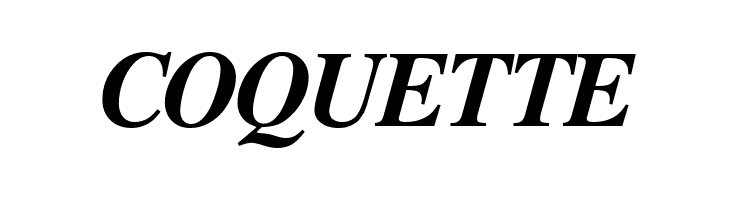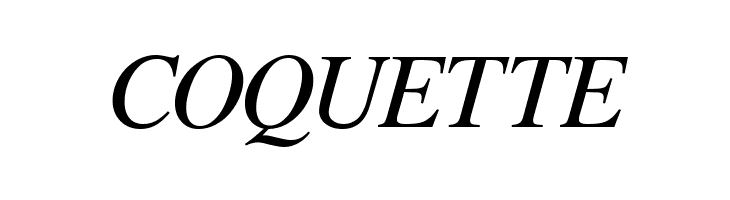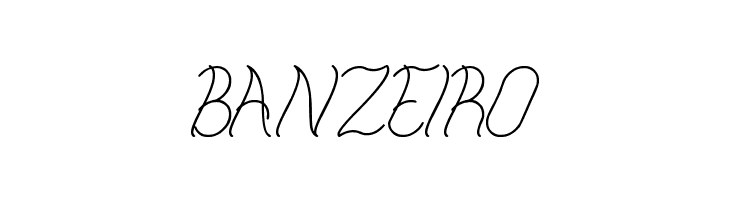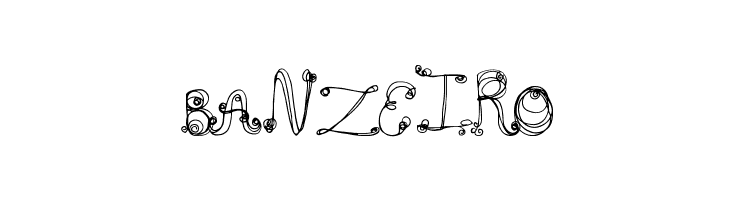
• FreeSerif Bold
( Fonts by GNU )
A bold, classic serif font with strong, authoritative characters.
• FreeSerif Bold Italic
( Fonts by GNU )
A bold, italic serif font with a classic and elegant style.
• FreeSerif Italic
( Fonts by GNU )
An elegant serif font with an italic slant, offering a classic and sophisticated look.
• FREEZER
A bold, jagged font with an icy, distressed appearance.
• FREEZER
( fontm.com/author/weknow/ )
A bold, jagged font with an icy, dynamic appearance.
• Freight Train Gangsta
( Epic Delusion - www.epicdelusion.com/fonts-s/1873.htm )
A bold, graffiti-style font with angular, dynamic shapes.
• French fries
An elegant, flowing script font with thin, delicate lines and graceful curves.
• French fries
• FrenchSugar
A whimsical, decorative font with intricate swirls and playful loops.
• fresh mint
A bold, geometric font with a three-dimensional outline and futuristic style.
• fresh mint
( fontm.com/author/weknow/ )
A bold, geometric font with a playful, modern style and thick outlines.
• FreshSticks
A bold, graffiti-inspired font with sharp, angular lines and dynamic energy.
• Friday Night Lights
A bold, varsity-style font with a textured, dotted interior and strong outlines.
• Frieda
( Fonts by Julia Lingertat )
A bold, modern font with a geometric and angular design.
• friendly robot
A bold, rounded font with a futuristic and robotic aesthetic.
• friendly robot
• FriendsForever
A tall, narrow, hand-drawn font with a playful and artistic style.
• FriskyVampire
An edgy, distressed font with jagged, irregular edges and a bold appearance.